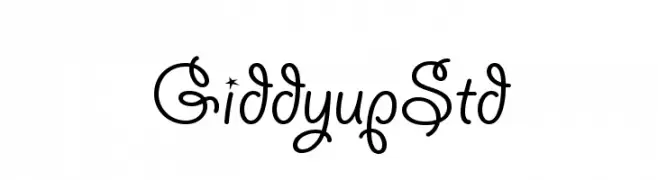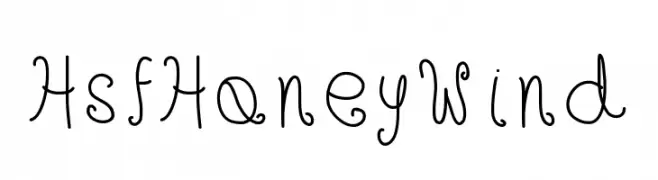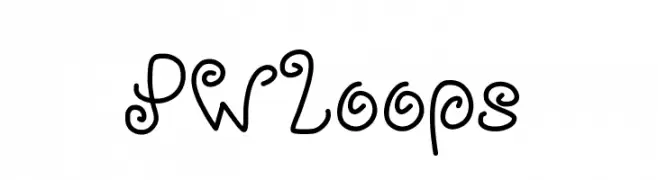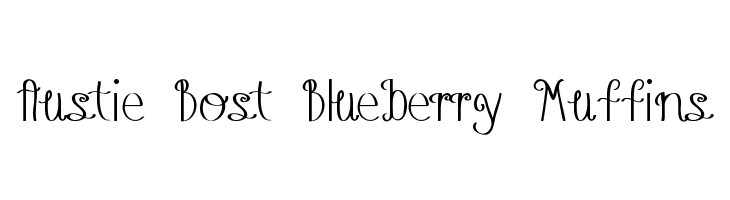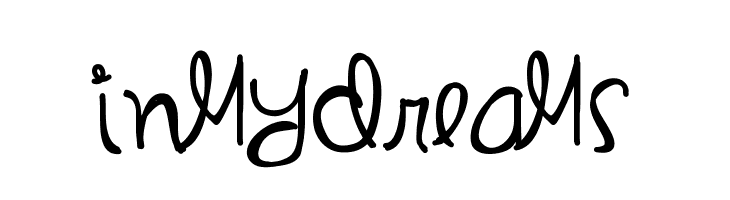
A playful, hand-drawn font with curly, looping strokes and decorative swirls.
A playful and whimsical script font with curly, looping letterforms.
A whimsical, playful font with curly, looping letterforms and decorative elements.
A playful, handwritten font with curly, looping strokes and a whimsical style.
A whimsical, hand-drawn font with curly, looping strokes and a playful style.
A playful and whimsical handwritten font with fluid, looping letterforms.
A whimsical and elegant script font with flowing, looping strokes.
A whimsical, looping font with playful curls and swirls.